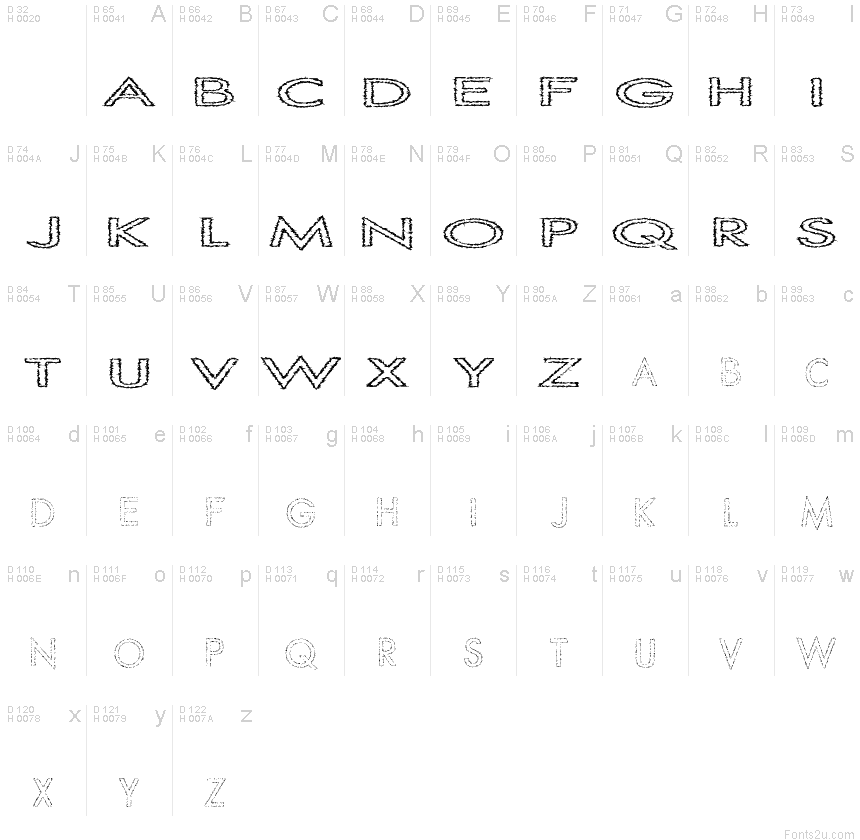
Slur Crumb
Slur Crumb by La Kikita is a free eroded outline caps display font with a scratchy, crumbly edge that feels hand-scuffed rather than engineered. The letters lean on rough open outlines and broken contours, giving the whole font a restless, rubbed-down look with a slightly punk, photocopied attitude.
It fits posters, zines, album artwork, title cards, cover lines, and short branding where a clean outline would feel too tidy. As a free font, Slur Crumb works best in brief settings like band names, event headers, or monograms, because the frayed outlines turn simple words into something raw and worn.